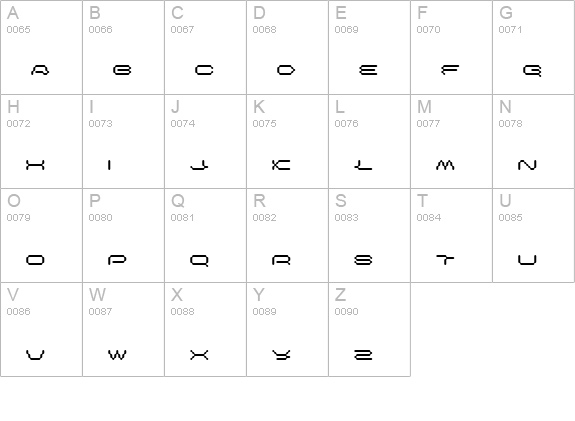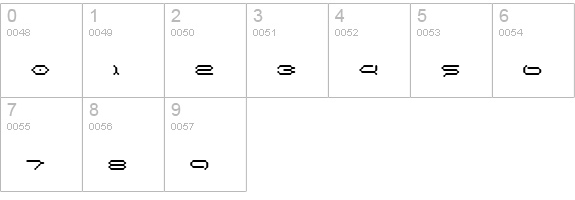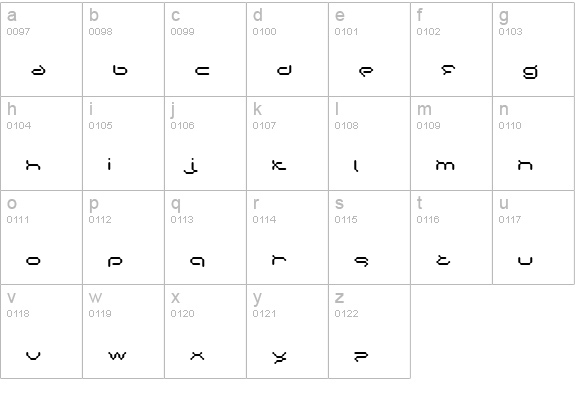
PulsarNClass Font Details
Introducing PulsarNClass font, a versatile and modern typeface that will elevate your design projects to new heights. With its sleek lines and contemporary feel, PulsarNClass is perfect for a wide range of applications, from branding to editorial design. This font is available for free download at FontsMarket.com, making it accessible to all designers looking to add a touch of sophistication to their work. Don't miss out on the opportunity to enhance your creations with the elegant and stylish PulsarNClass font. Download it today and let your creativity shine!